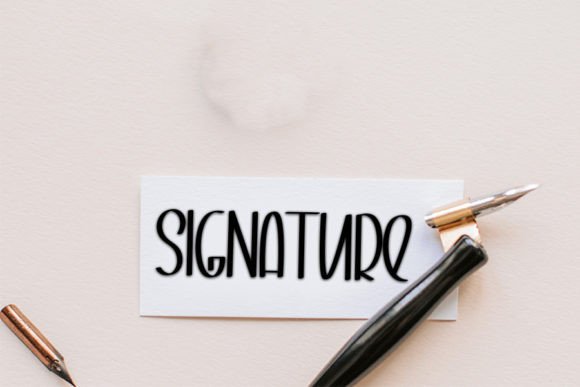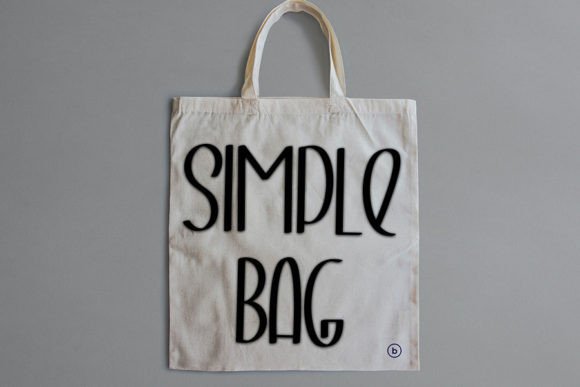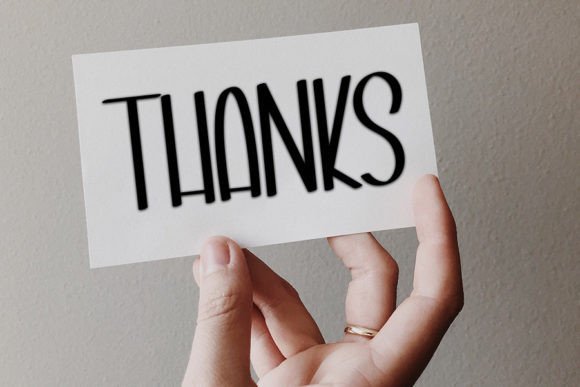
About Simple Thinking Font
Simple Thinking Font is a neat and beautiful handwritten typeface that adds an elegant touch to your creative projects. Its distinct and timeless style makes it an excellent choice for logos, invitations, branding, and more. Simple Thinking brings sophistication and charm, helping you create designs that are both memorable and stylish.
Elegant and Timeless Design
This font features smooth, flowing strokes and well-balanced letterforms that blend clarity with style. Simple Thinking’s elegant appearance is suitable for a variety of creative uses, from formal branding to personal stationery. Its timeless look ensures your projects remain classic and appealing.
Ideal Uses for Simple Thinking Font
Simple Thinking is perfect for:
Wedding invitations and save-the-date cards
Logos and brand identities
Greeting cards and thank-you notes
Editorial layouts and magazine designs
Social media graphics and digital marketing
Its elegant style enhances any project with sophistication.
Why Choose Simple Thinking Font?
Designers appreciate Simple Thinking for:
Neat and elegant handwritten letterforms
Distinctive and timeless style
Versatility across print and digital media
These qualities make Simple Thinking a practical and beautiful font choice.
Add Charm and Elegance to Your Designs
Typography defines the mood of your work. Simple Thinking adds warmth, elegance, and personality to your projects. Whether for weddings, branding, or editorial content, this font helps create an inviting and refined atmosphere.
In conclusion, Simple Thinking Font is an elegant and timeless handwritten script perfect for designers seeking a classic and stylish font. Add Simple Thinking to your font library to elevate your creative projects with charm and grace.